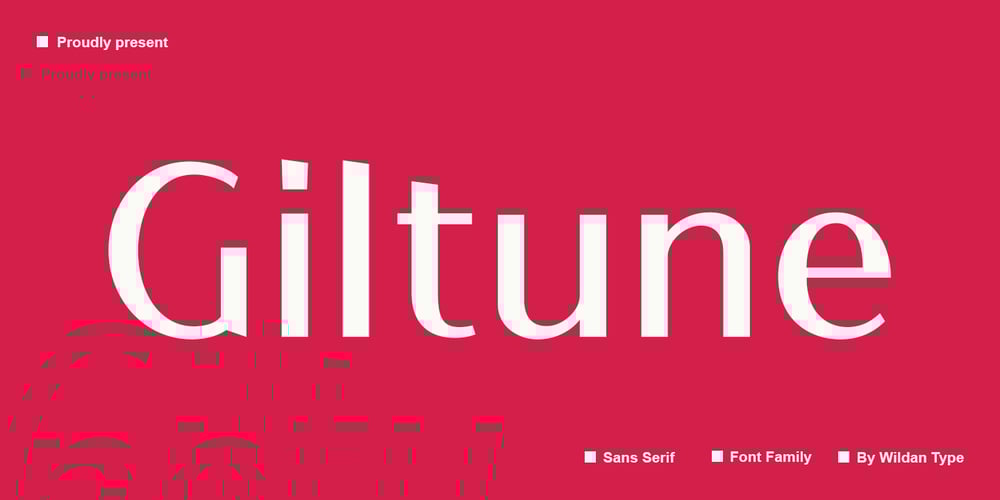
Giltune
Giltune font
Giltune Font Family was designed by Wildan Suprian Syah and published by Wildan Type. Giltune contains 16 styles and family package options. Giltune is minimalist sans-serif font family designed by Wildan Suprian Syah in 2024. The font features hight contrast, making it versatile for various design applications. Giltune offers a range of weights from Thin to Extra Bold, Allowing flexibility in typographic hierarchy and emphasis. its clean and modern appearance make it suitable for both digital and print media, ensuring easthetic appeal.